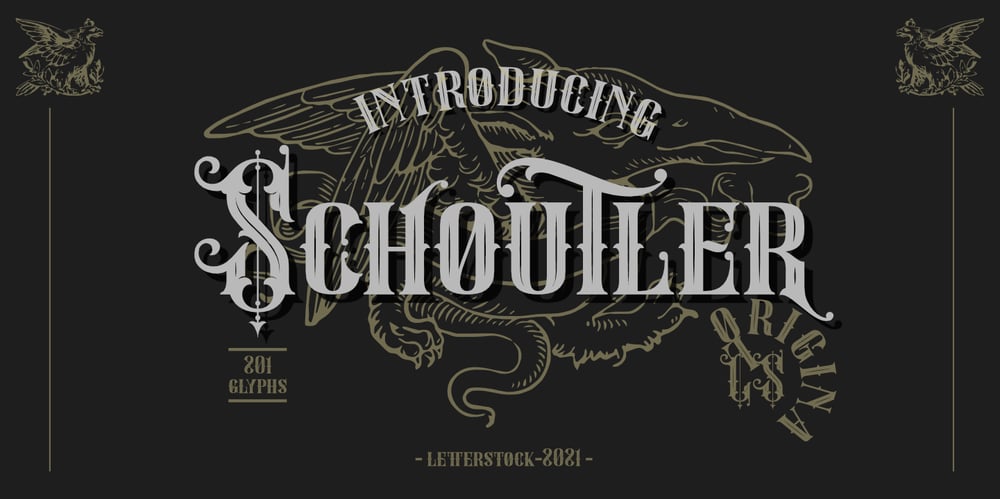
Schoutler Font Family was designed by Studio LetterStock and published by LetterStock. Schoutler contains 1 styles and family package options. **Schoutler Font**This pair was inspired by the retro motorbike poster design that i saw on some coffee shop, It was crafted by hand specially to add natural handmade feeling in its brand identity than i make it clean with pentool.**Opentype features**Schoutler font has 201 character set included Schoutler Font is very good looking in logo, labels, t-shirt prints, product packaging, invitations, advertising and others.**What includes**• Multilingual support (Western European characters).This fonts works with folowing languages: Afrikaans, Albanian, Asu, Basque, Bemba, Bena, Chiga, Cornish, Danish, English, Estonian, Filipino, Finnish, French, Friulian, Galician, German, Gusii, Indonesian, Irish, Italian, Kabuverdianu, Kalenjin, Kinyarwanda, Low German, Luo, Luxembourgish, Luyia, Machame, Makhuwa-Meetto, Makonde, Malagasy, Malay, Manx, Morisyen, North Ndebele, Norwegian Bokmål, Norwegian Nynorsk, Nyankole, Oromo, Portuguese, Romansh, Rombo, Rundi, Rwa, Samburu, Sango, Sangu, Scottish Gaelic, Sena, Shambala, Shona, Soga, Somali, Spanish, Swahili, Swedish, Swiss German, Taita, Teso, Vunjo, Zulu